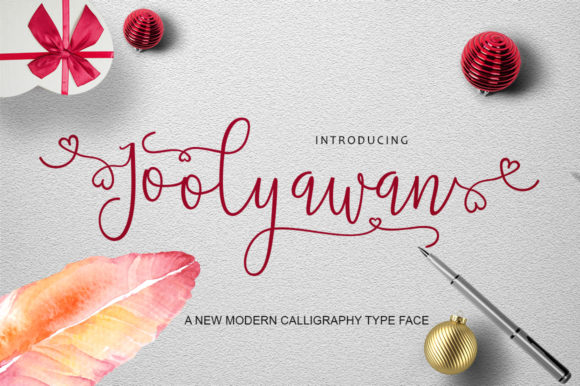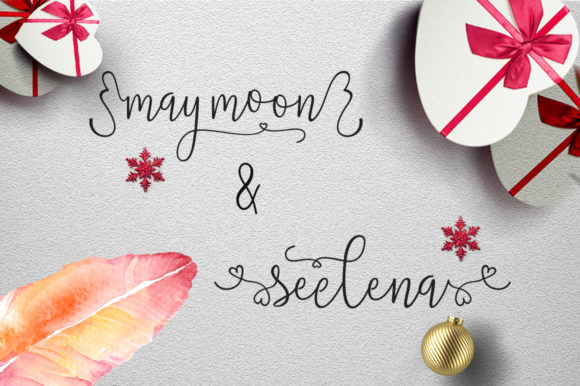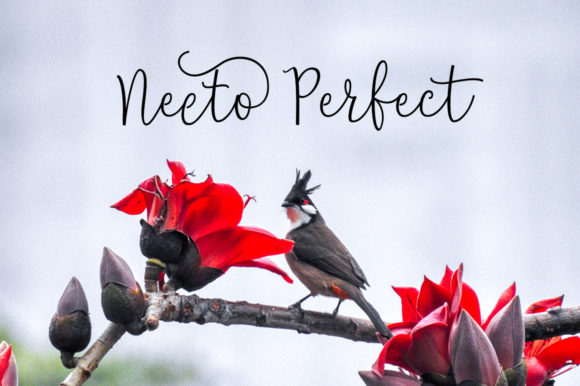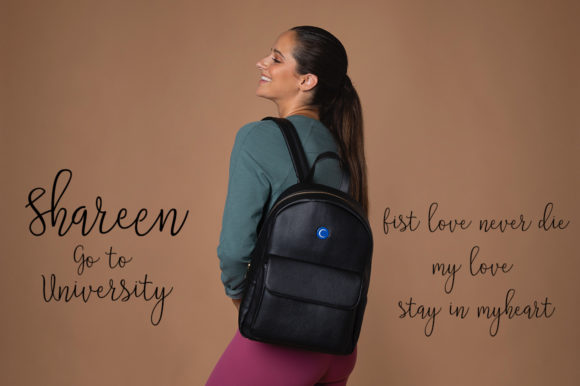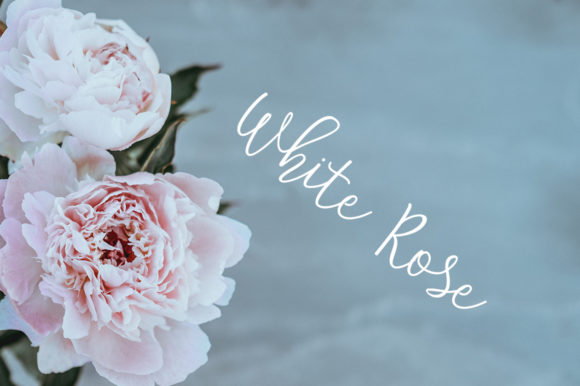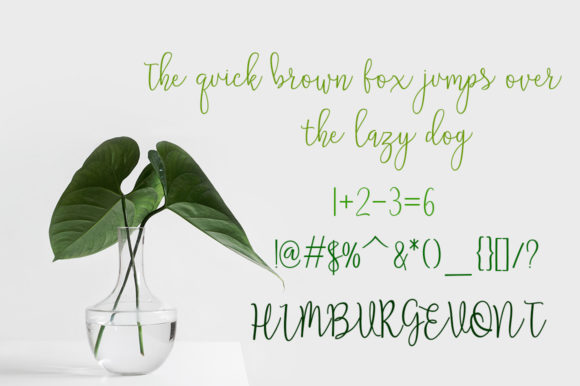
Joolyawan Font
About Joolyawan Font
Joolyawan is an equally bold and charming handwritten font with a cool twist. Use it to turn any design project into a true standout!